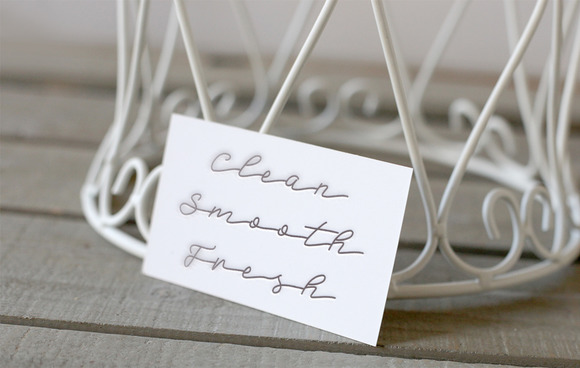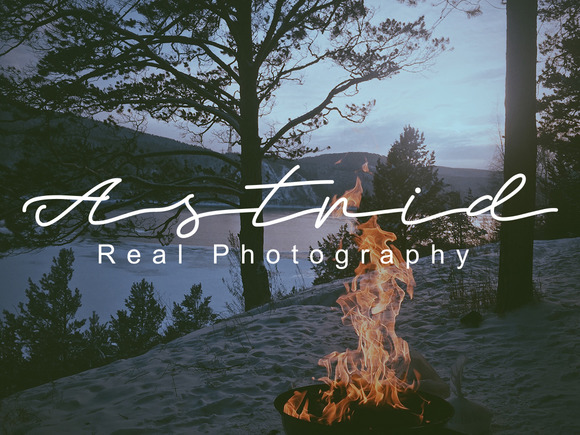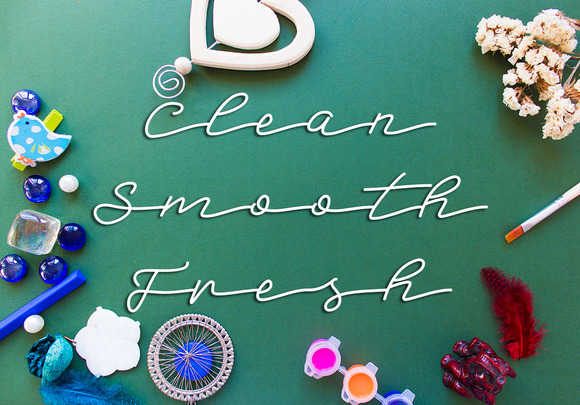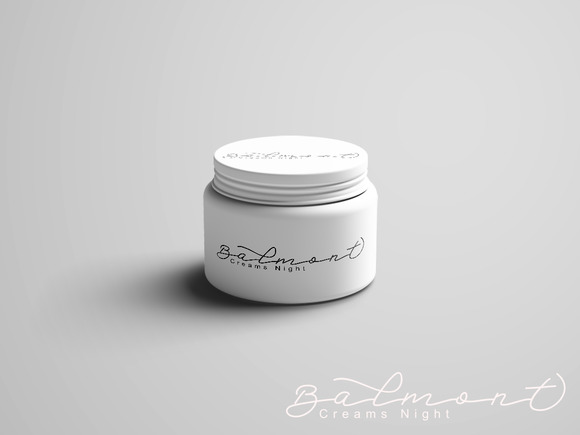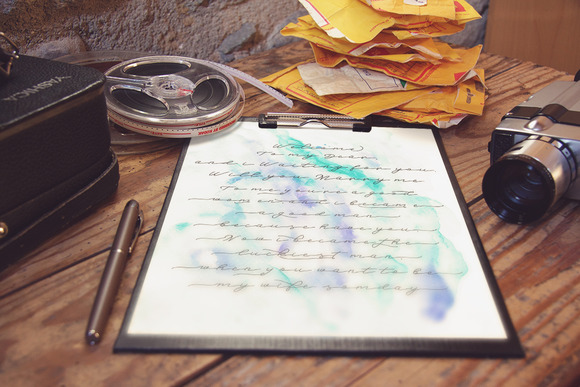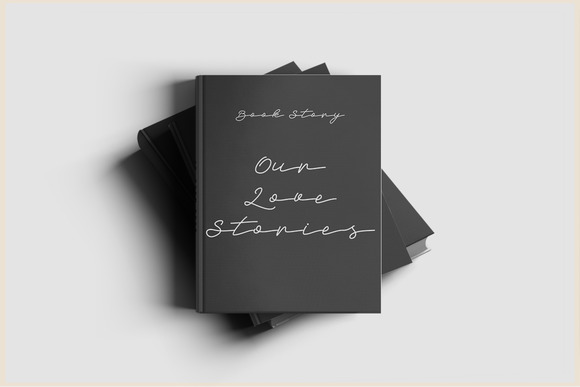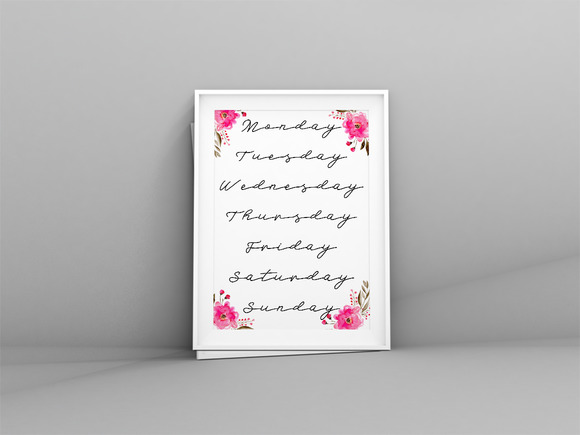
Badegan Script Font
About Badegan Script Font
Badegan Script is a handmade calligraphy script font with a modern fresh style.
The Bedegan Script font is filled with decorative characters and has a stunning dancing baseline. This font looks absolutely beautiful on greeting cards, invites, posters and much more. The font works great with digital design and also printed.
Badegan Script comes with 377 Glyphs and is filled with alternate characters. This allows you to create many variations.
Swashes
Stylistic Sets
Stylistic Alternates
Contextual Alternates